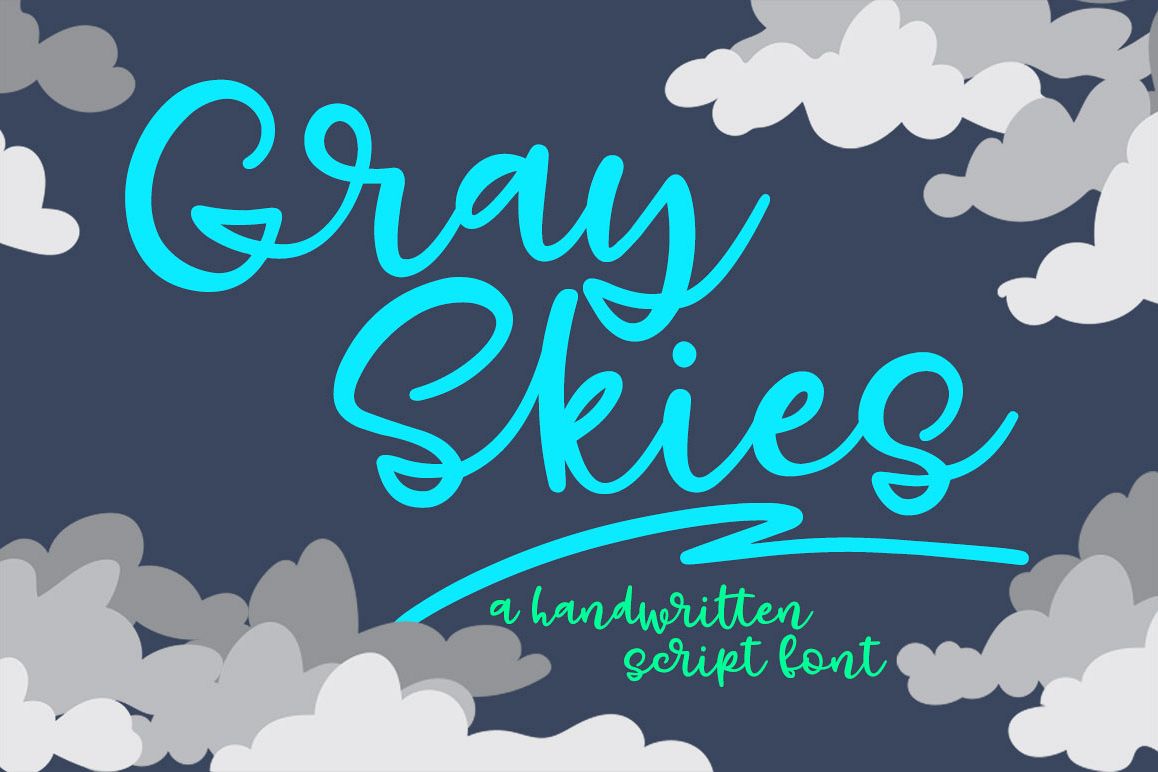
Gray Skies - handwritten script font
Introducing Gray Skies, a new connecting script font! It all started with the letter Y -- instead of a loop at the bottom, I drew a kind of zig-zag smiling-mouth shape. That weird loop ended up inspiring a lot of the other characters, and a new script font was born!
As usual, this font is packed with features:
- Uppercase A-Z, lowercase a-z, numbers 0-9, and a full set of punctuation
- Over 350 accented and extended characters for language support, including Æ, æ, Œ, œ, and ß
- Alternates for lowercase a-z (mapped to Stylistic Alternates in OpenType coding, and also included in the separate Gray Skies Alternates file)
- 38 double- and triple-letter ligature sets (mapped to Ligatures in OpenType coding, and also included in the separate Gray Skies Alternates file)
- 10 bonus flourishes and swashes in the Alternates file - type them separately and attach them anywhere for a little extra flair!